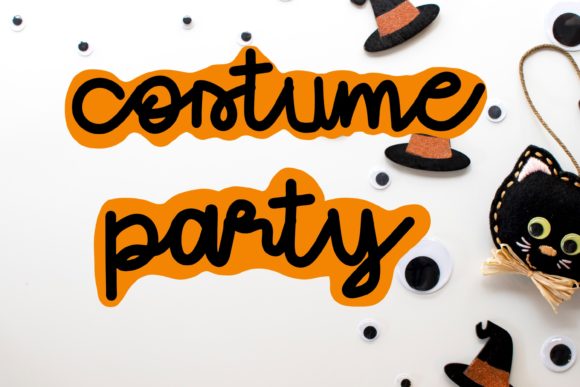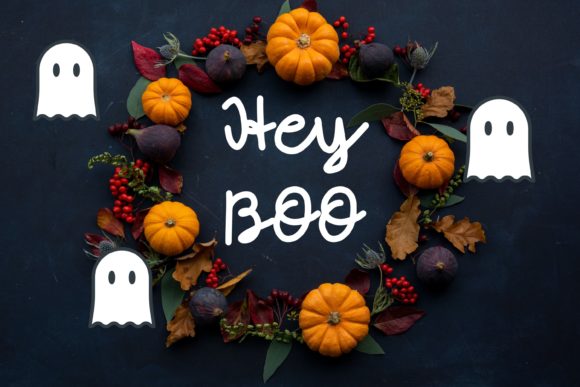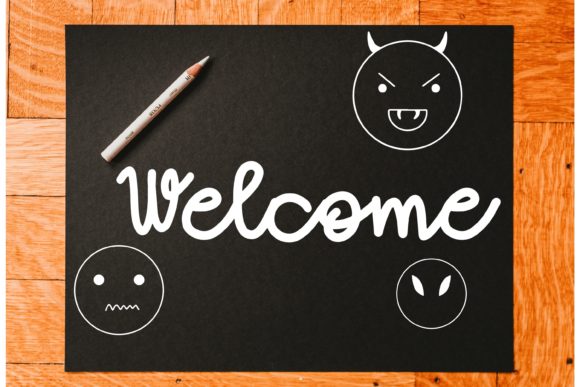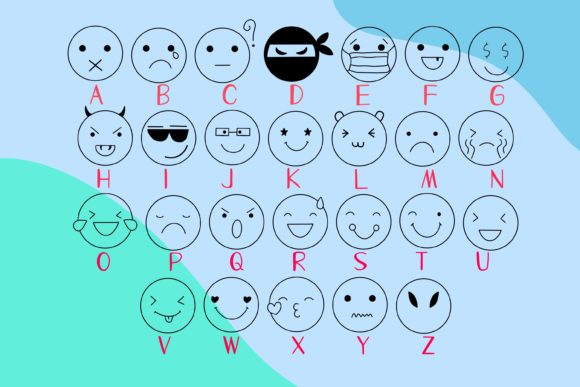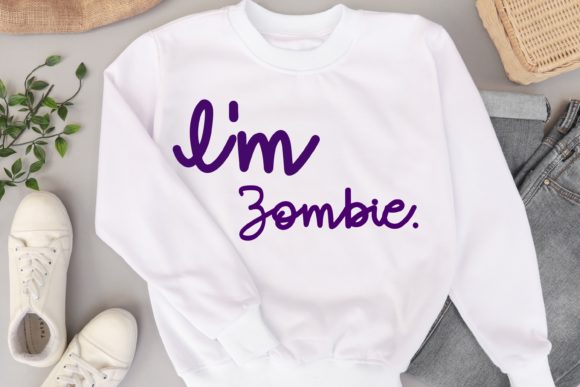
About Happy Halloween Font
Happy Halloween is a fun and playful duo font (script and dingbats). Combine the two fonts to create the most amazing Halloween crafts, or use them separately and enjoy the endless possibilities!